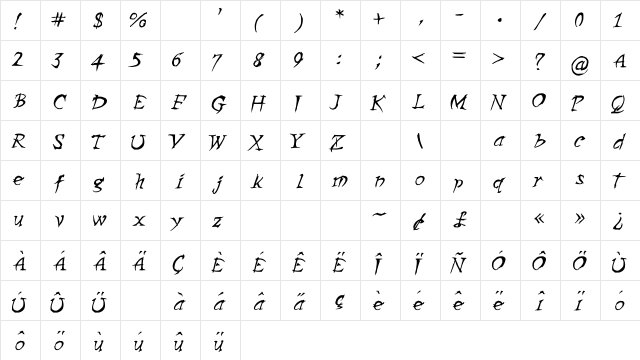
ZombieGirlfriend Medium
Design Context for ZombieGirlfriend Typeface
ZombieGirlfriend is a composed and adaptable typeface that performs quietly and consistently across a wide range of design contexts.
Pro Tip: Use ZombieGirlfriend in both headline and body roles to test its range before committing to a single application.